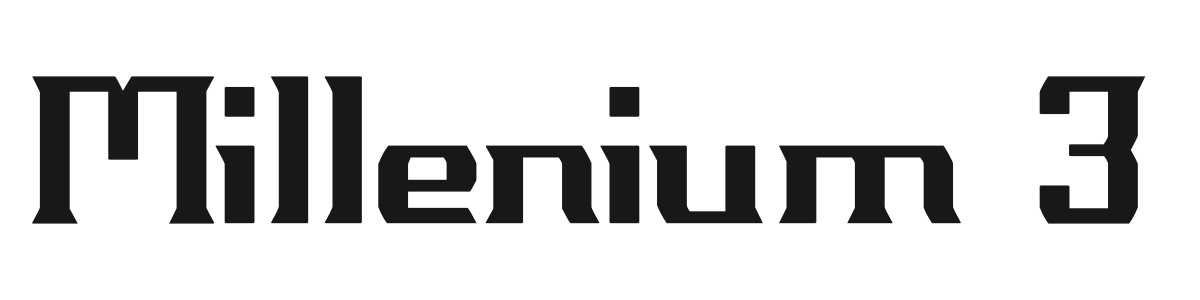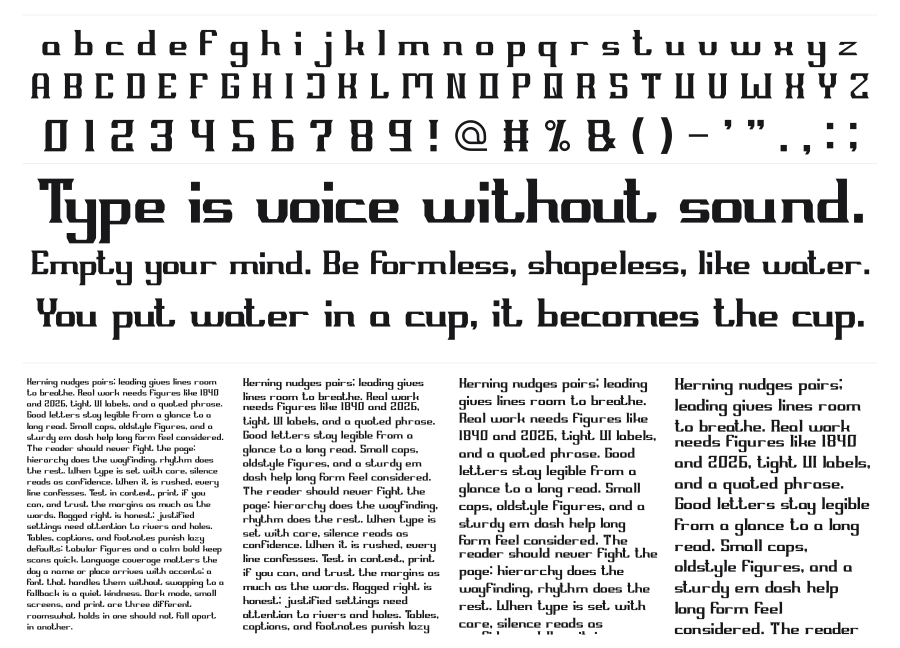
Millenium 3
Millenium 3 is a heavy square geometric sans built entirely from blocky, right-angled strokes with sharp notch cutouts at key junctions. That modular construction gives it a dense, machine-made texture that reads as both futuristic and industrial. It works best at large sizes where the angular details register as deliberate design rather than noise.